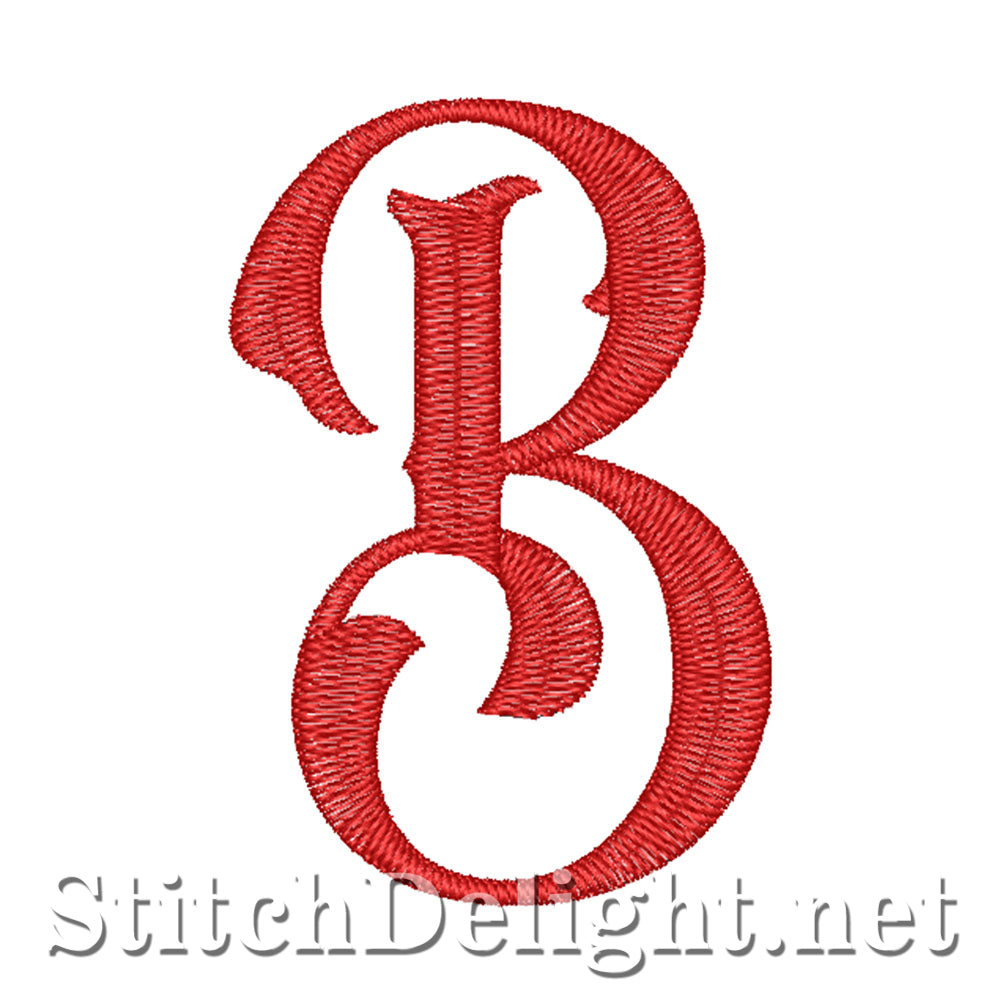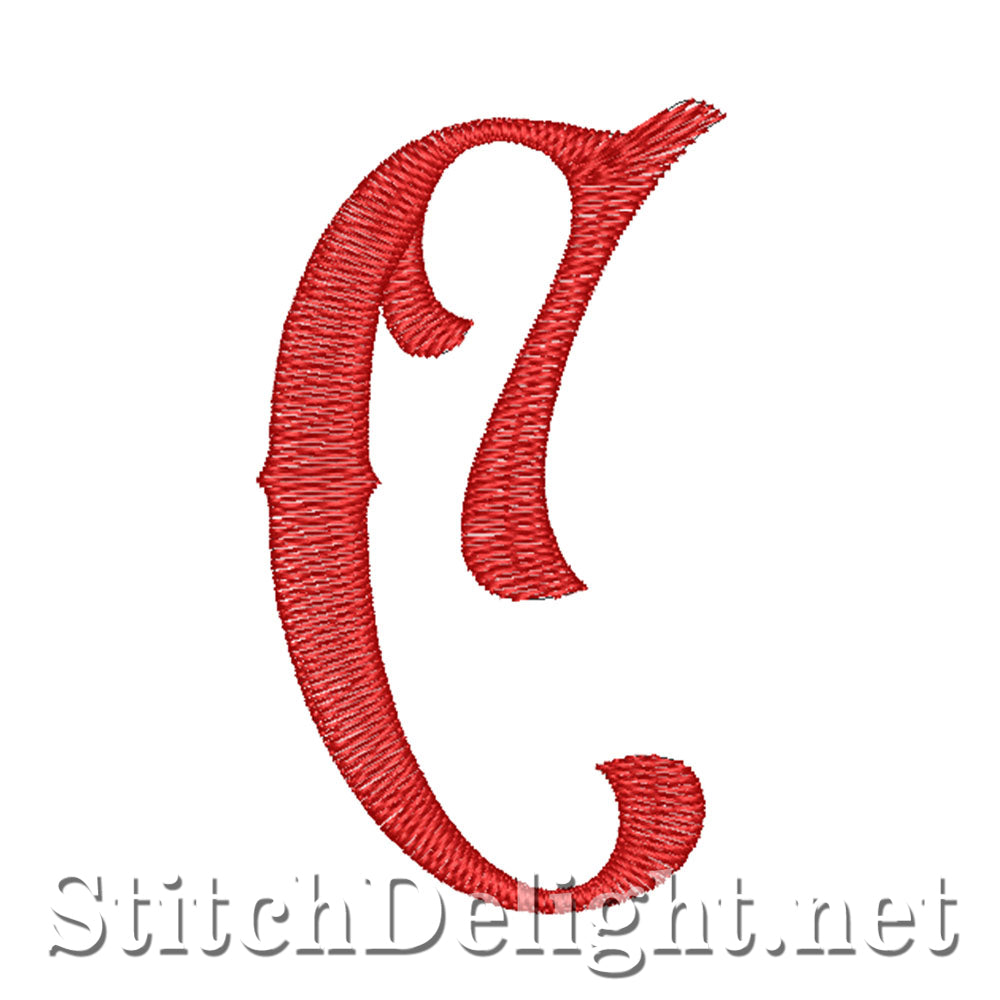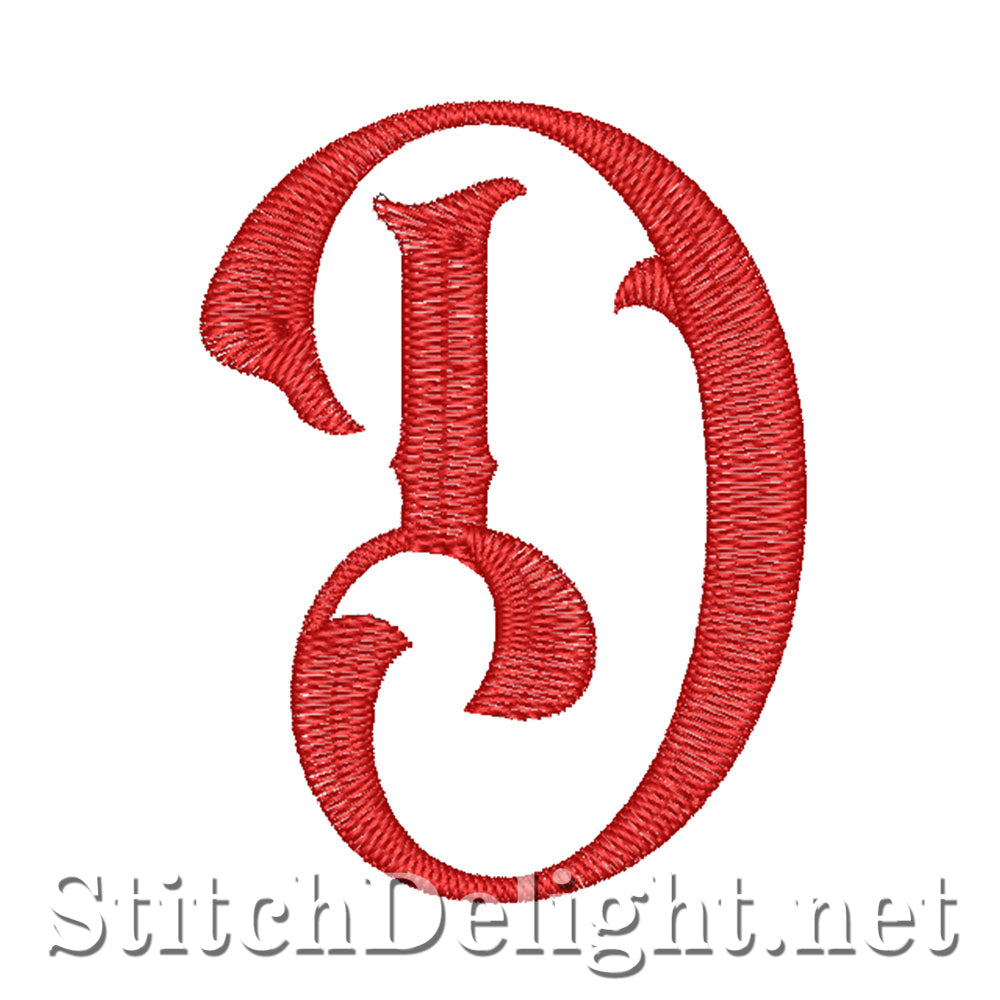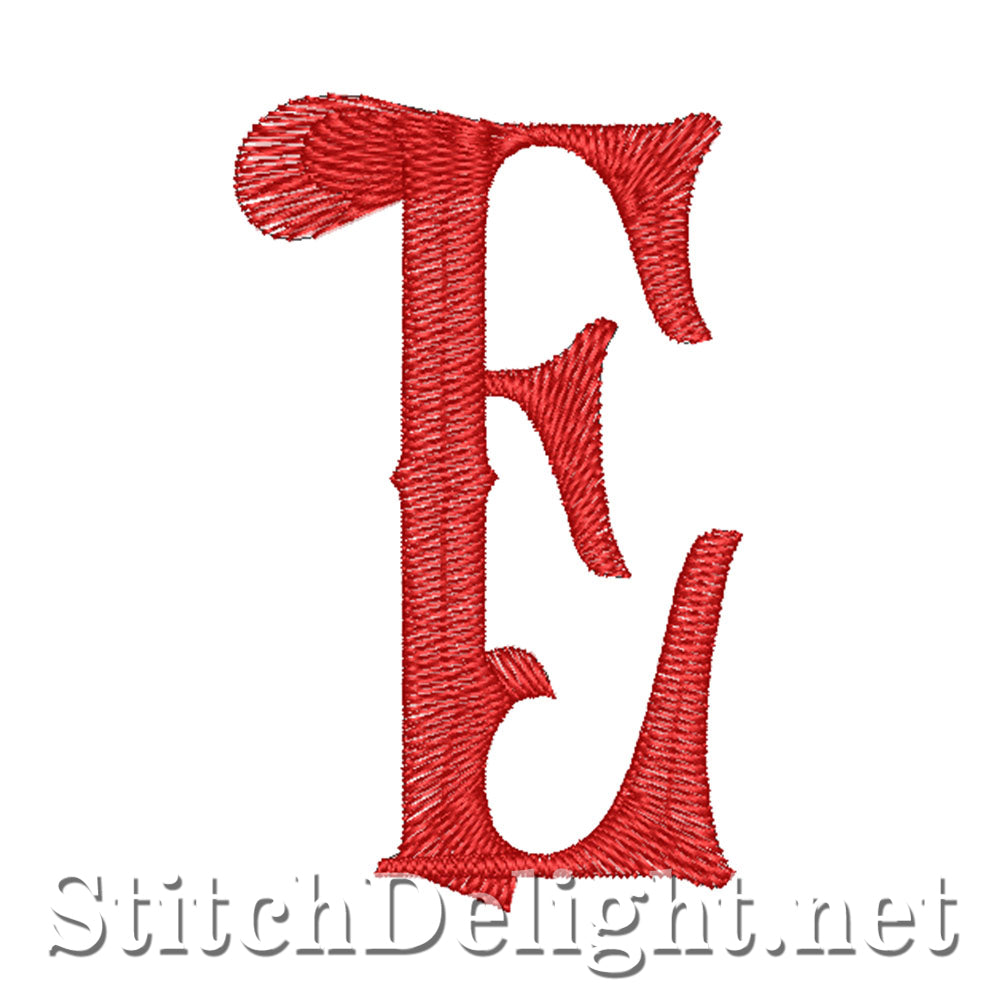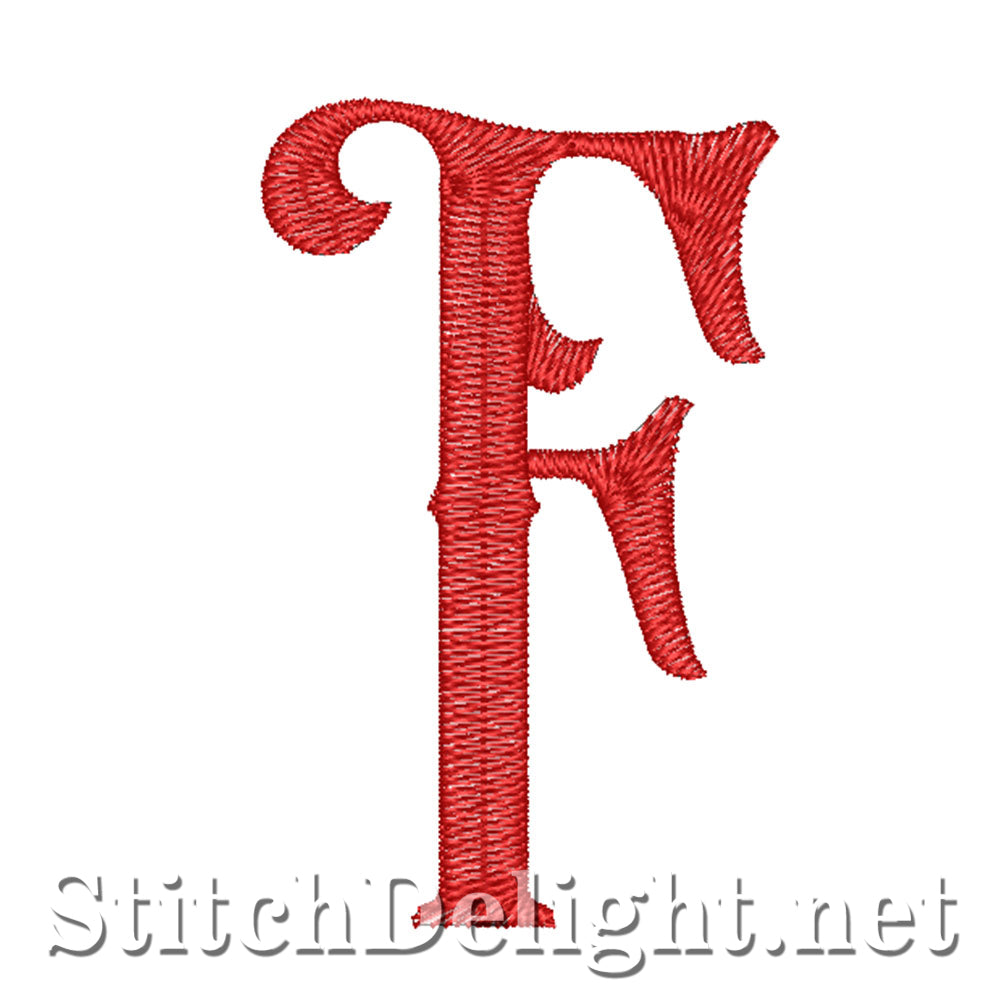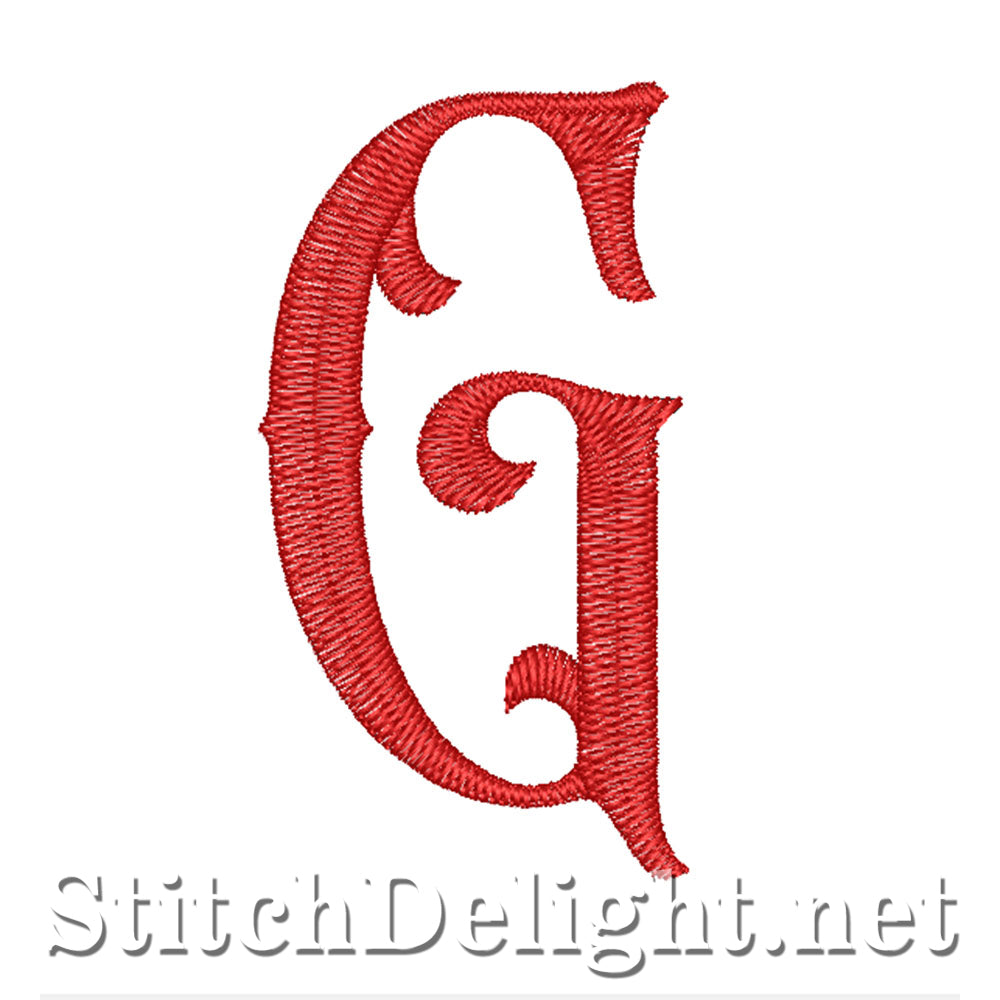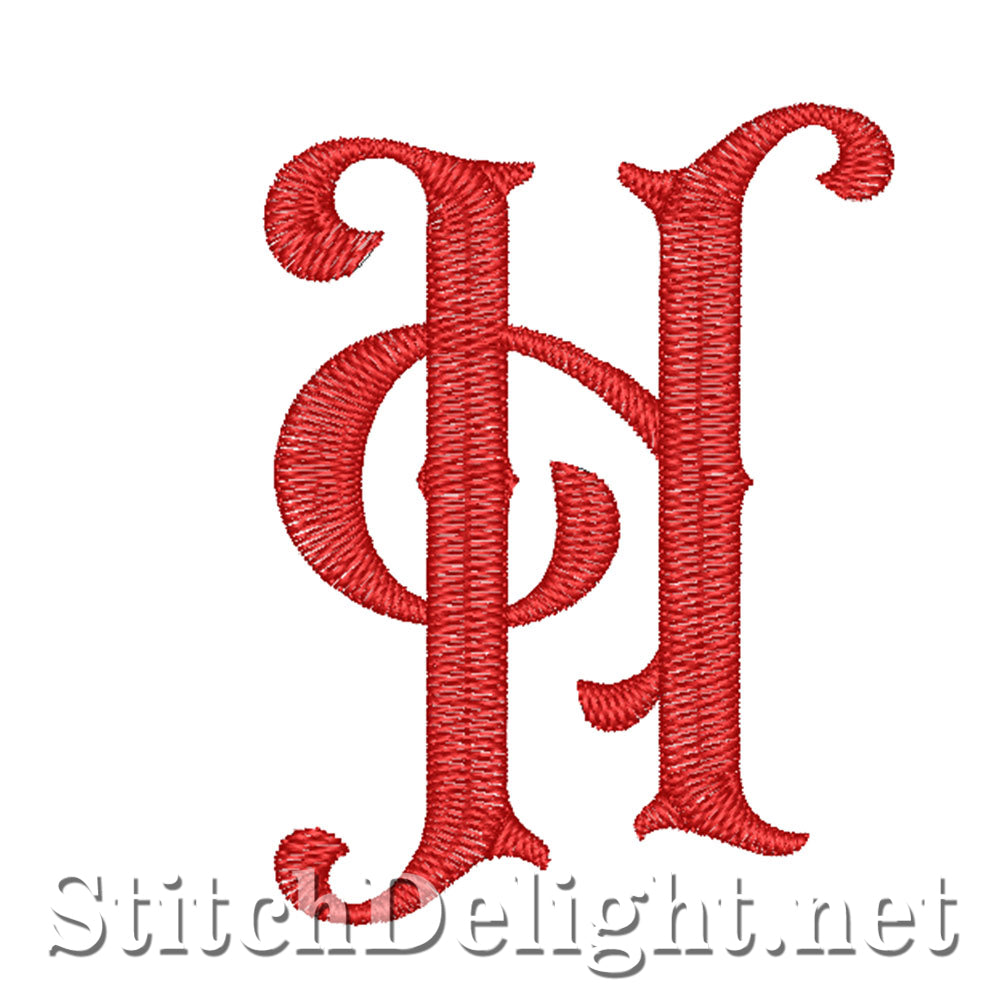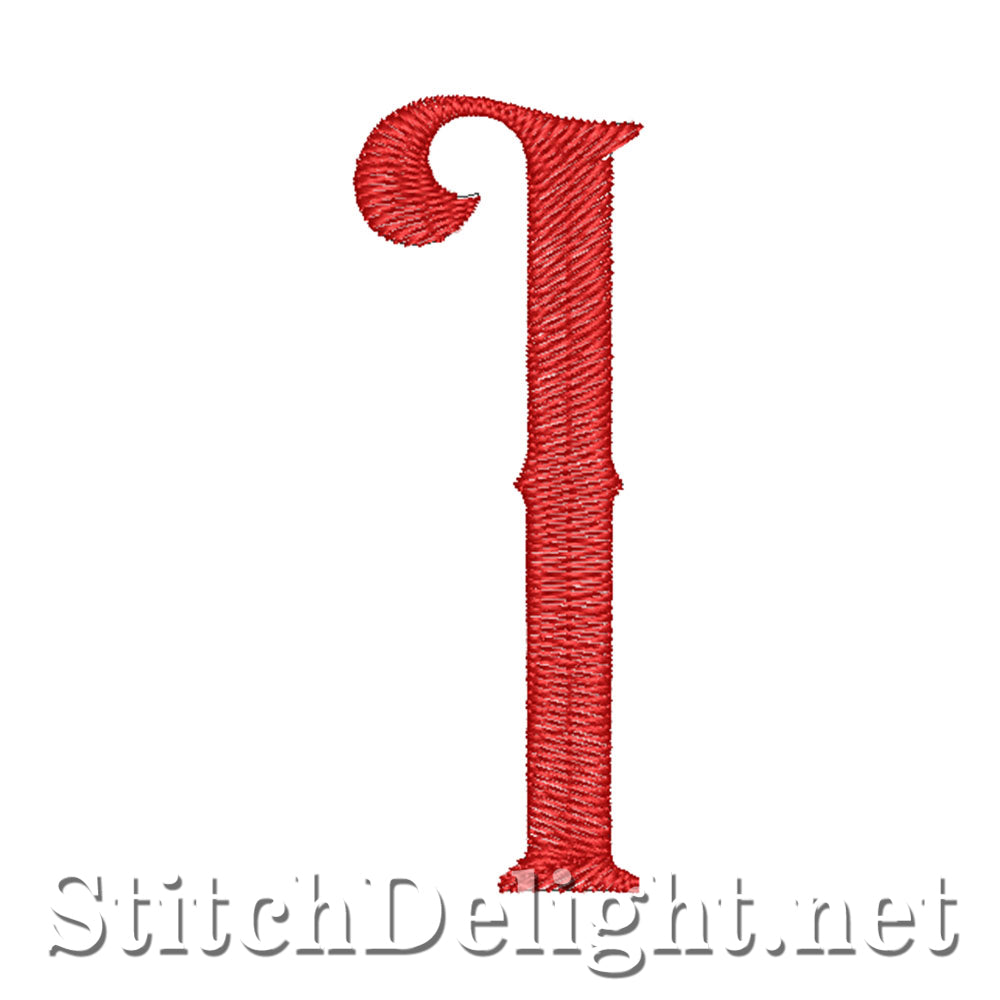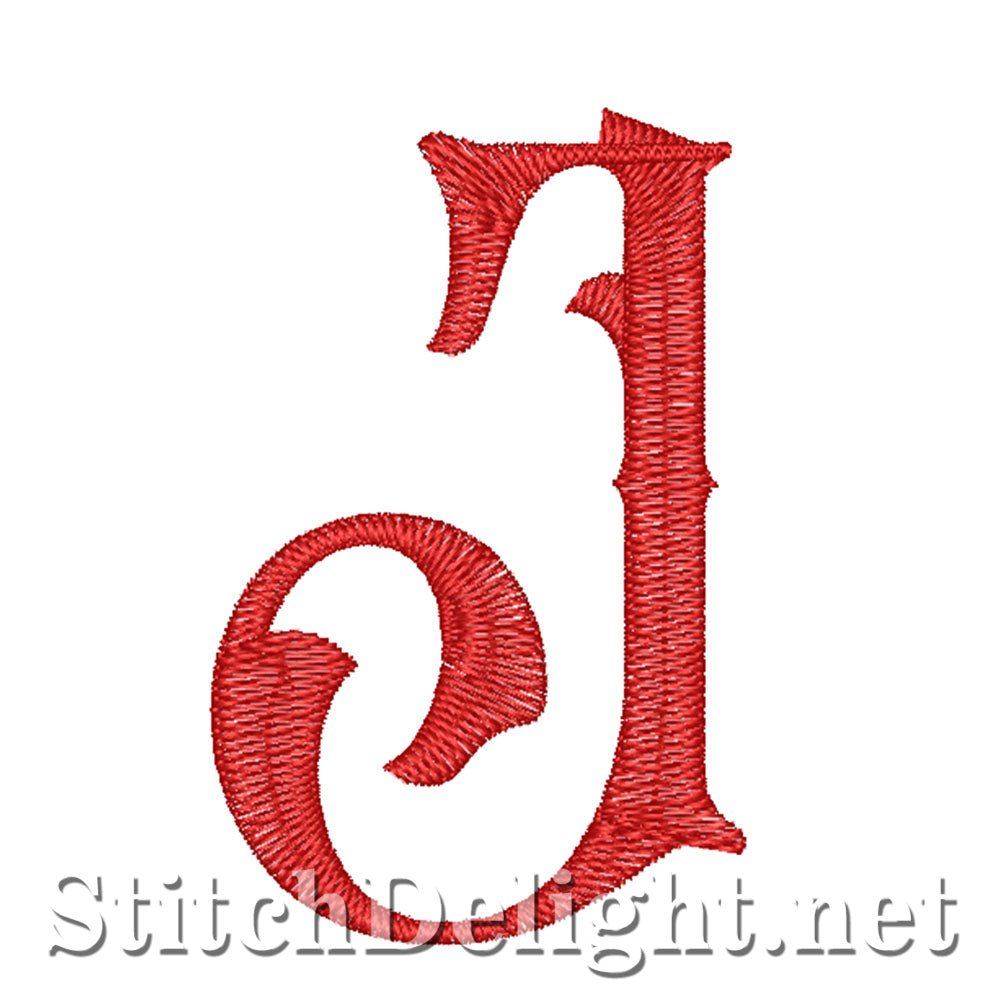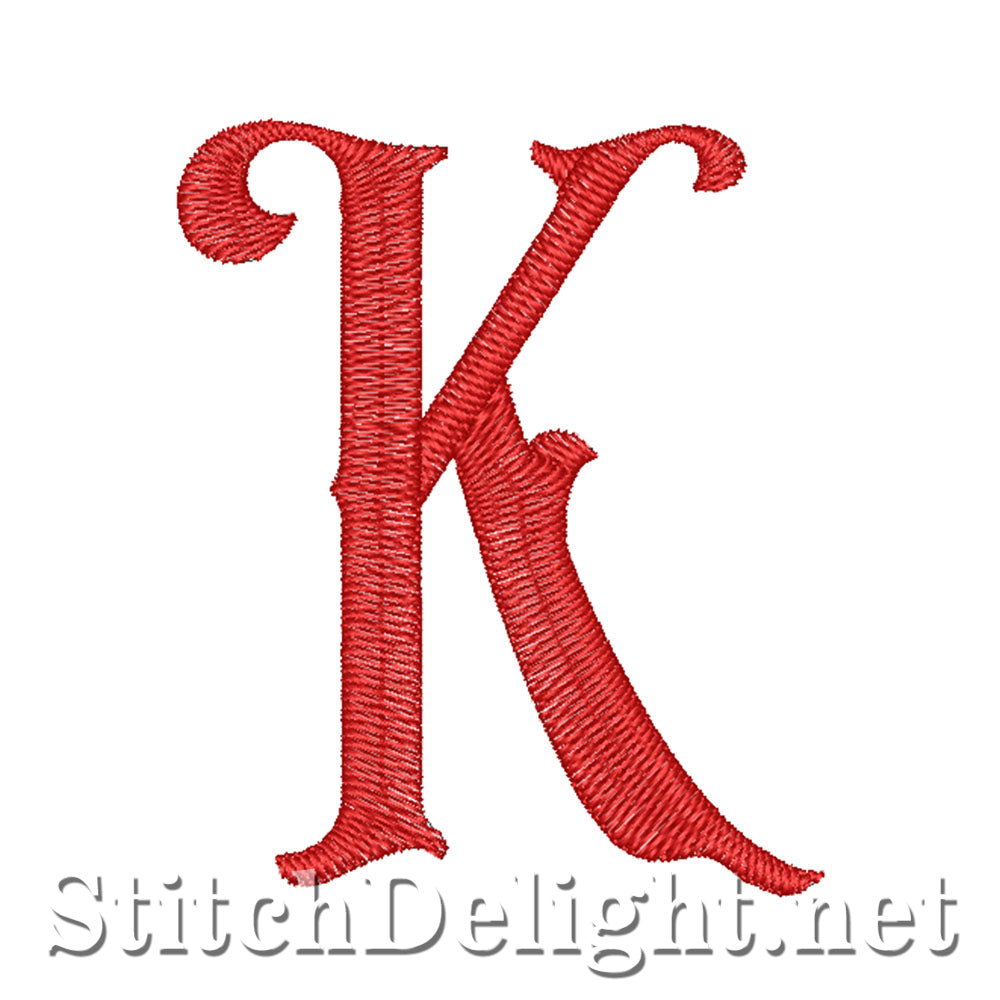
This is a Matching font for SDS3264 Wheat Font, it compliments that font in both style and size, this font includes both upper case and lower case letters including a BX format. this font was used on SDS3263 Whisper Quote along with SDS3264 Wheat Font. letter height varies from 38.8mm (1.53" )- 63.8mm (2.51") depending on upper and lower case lettering